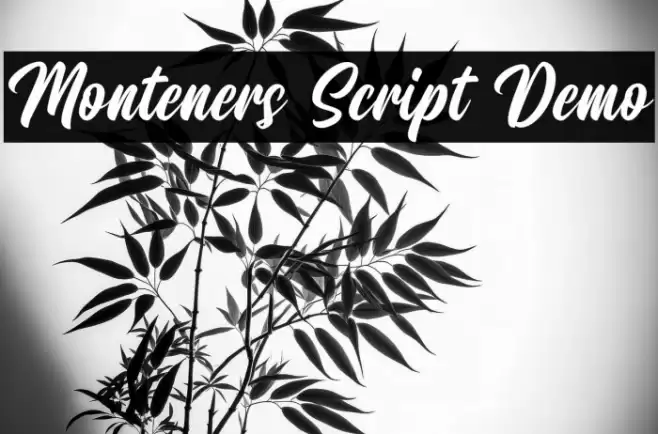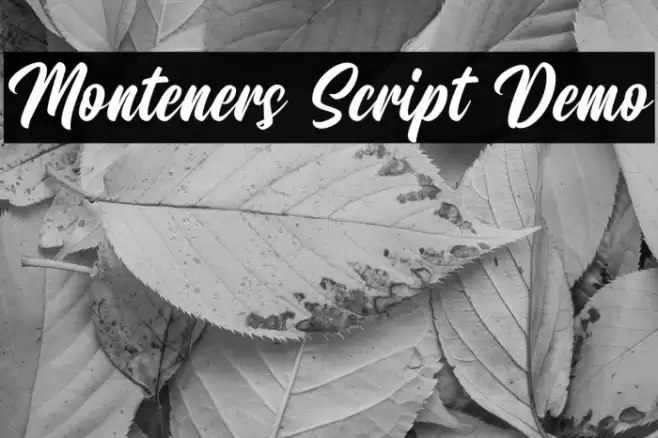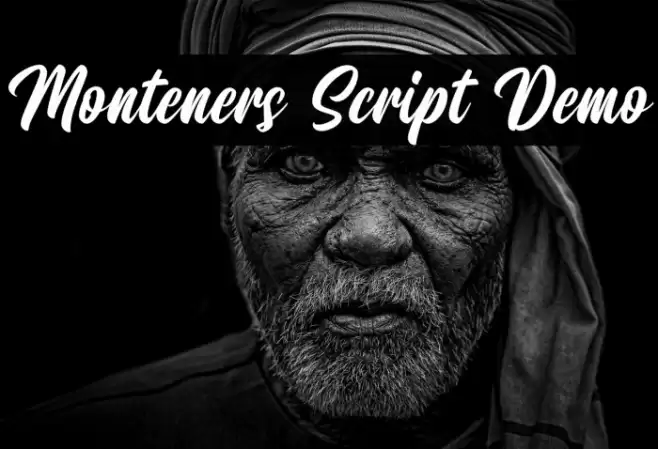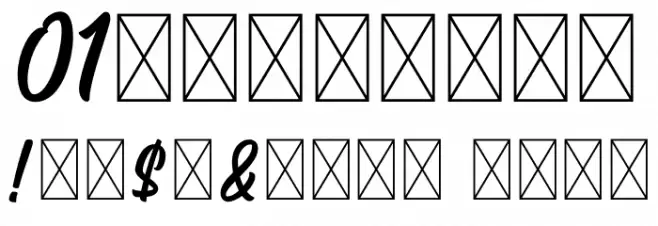
Monteners Script Demo Font
Monteners Script Demo Description
This font showcases a bold and flowing script style, characterized by its elegant and smooth curves. The uppercase letters are prominently designed with a sense of movement and fluidity, while the lowercase letters maintain a consistent flow, enhancing readability. The font exudes a sense of sophistication and charm, making it suitable for creative and expressive designs. The numbers are styled to match the script's aesthetic, ensuring a cohesive look across all characters. Special characters are included, maintaining the same stylistic approach, which adds versatility to the font's application.
A bold, elegant script font with smooth curves and a sophisticated style from Uncategorized fonts.
- Proposed Projects: Ideal for wedding invitations, branding projects, greeting cards, and elegant packaging designs.
- Overall Style: Elegant, Sophisticated
- Use Case: Logos, Invitations, Branding